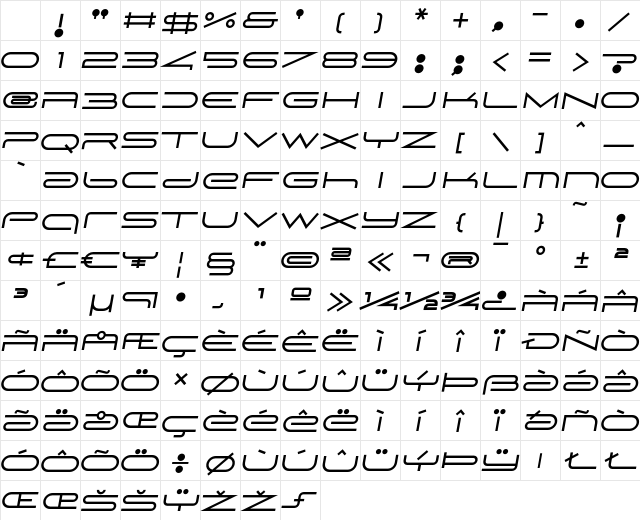
Complete Droids SansItalic glyph index. Displaying only characters natively supported by Droids SansItalic font.
Droids is a composed and adaptable typeface that performs quietly and consistently across a wide range of design contexts. The slanted form adds forward momentum and visual energy.
Pro Tip: Use Droids for emphasis, pull quotes, and subheadings where its slanted energy can add rhythm to the layout.